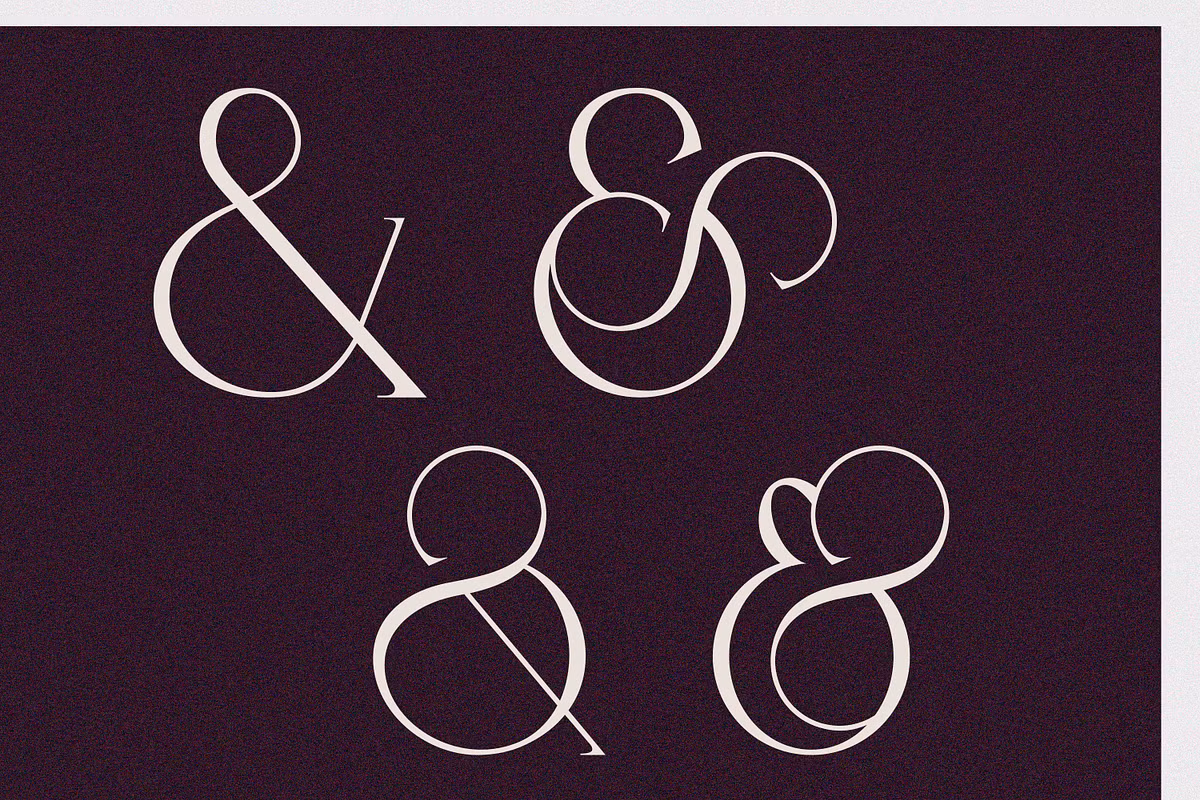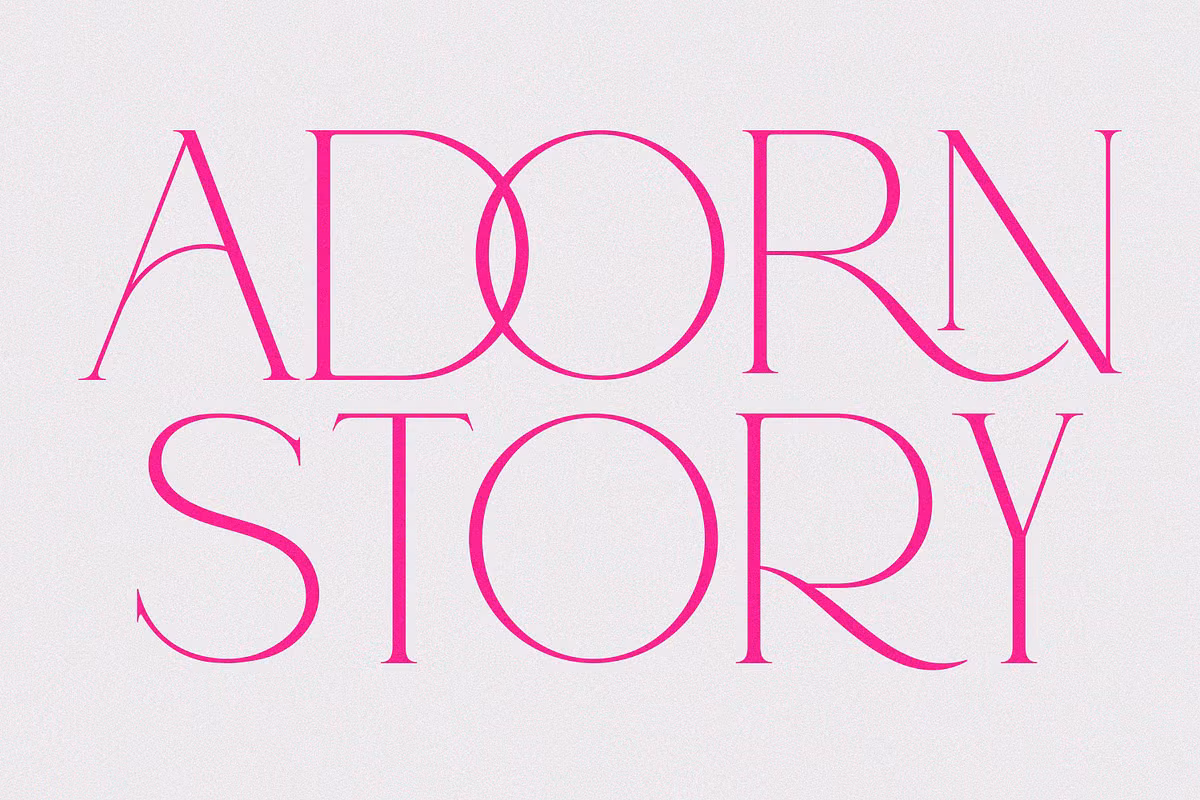
Adorn Story // Serif: Standalone Serif Font for Creative Projects
You’re going to love this – the beautiful Serif font from Adorn Story is now available to buy on its own, so you don’t have to pay extra for the script version if you don’t want it. Adorn Story Serif is a really versatile and elegant font that can make your creative projects look amazing. It comes in lots of different formats, like OTF, TTF, WOFF, and WOFF2, which means you can use it for all sorts of things. Whether you’re working on a big project or just something small, this font is a great choice because it’s so flexible and easy to use.
With Adorn Story Serif, you can add a touch of sophistication and style to anything you create, from posters and flyers to websites and social media posts. So if you’ve fallen in love with this font, now’s your chance to get your hands on it and take your designs to the next level!
Design Style of Adorn Story Serif
The Adorn Story Serif font has a really nice look to it, combining old-school style with a modern twist. The letters are well-designed, with smooth curves and sharp edges, which makes it great for using in printed materials or on screens. This font is easy to read and looks really stylish, which helps make your projects stand out visually.
It’s a good choice for anyone who wants a classic look with a bit of a contemporary feel. The soft curves and sharp serifs work well together, creating a balanced look that’s perfect for a wide range of uses. Overall, the Adorn Story Serif font is a great option for anyone looking for a refined and elegant design aesthetic.
One of the standout features of the Adorn Story Serif is its versatility. It works beautifully in various design contexts, whether you’re creating a sophisticated branding project or a charming wedding invitation. The font’s sophisticated yet approachable style makes it suitable for both formal and informal applications.
Character Sets and Font Features
The font Adorn Story Serif has a really big set of characters – we’re talking uppercase and lowercase letters, numbers, and tons of punctuation marks. This means you can write whatever you want, in almost any language, and have all the symbols you need to get your point across.
It’s pretty great because it gives you the freedom to express yourself without worrying about running out of options. Whether you’re writing a story, creating a design, or just typing out a message, Adorn Story Serif has got you covered with its wide range of glyphs.
The font also has some special features that let designers be more creative with their text. It has things like ligatures and alternate characters, which are part of OpenType. This means designers can make their text look really unique and add their own style to it.
Use Cases for Adorn Story Serif
The possibilities for using Adorn Story Serif are endless, really. Let’s take a look at some of the most useful ways to put it to work.
- Branding: Create a strong brand identity with this font by using it in logos, business cards, and other corporate materials.
- Editorial Design: Perfect for magazine layouts, book covers, and promotional materials, Adorn Story Serif adds a touch of sophistication to any editorial project.
- Wedding Invitations: Its elegant design makes it an ideal choice for wedding stationery, helping to convey the style and theme of the event.
- Graphic Design: Use it in posters, flyers, and social media graphics to create visually striking designs that capture attention.
The way the words look on a website is easy to read, which makes it a good choice for online content and ads on the internet.
Pairing Suggestions for Adorn Story Serif
Pairing fonts effectively can elevate your design projects. Here are some suggestions for complementary typefaces that work well with Adorn Story Serif:
- Sans-Serif Fonts: Pair Adorn Story Serif with a clean sans-serif font like Helvetica or Montserrat for a balanced, modern look.
- Script Fonts: For a more elegant touch, consider pairing it with a delicate script font such as Great Vibes or Pacifico, which can add a whimsical flair.
- Display Fonts: Use a bold display font like Bebas Neue to create striking headlines that contrast beautifully with the refined nature of Adorn Story Serif.
When pairing fonts, always consider hierarchy and readability to ensure that your designs maintain clarity and impact.
Adorn Story Serif is a really beautiful font that can make any project look great. It has a classic design and lots of different characters, which makes it useful for all sorts of things. Whether you’re making a brand look cool, working on a magazine or book, or designing something for a website, this font is a great choice.
It’s got style and it works well, so it’s a good idea to use it to make your work stand out. You should definitely consider using Adorn Story Serif to take your projects to the next level.